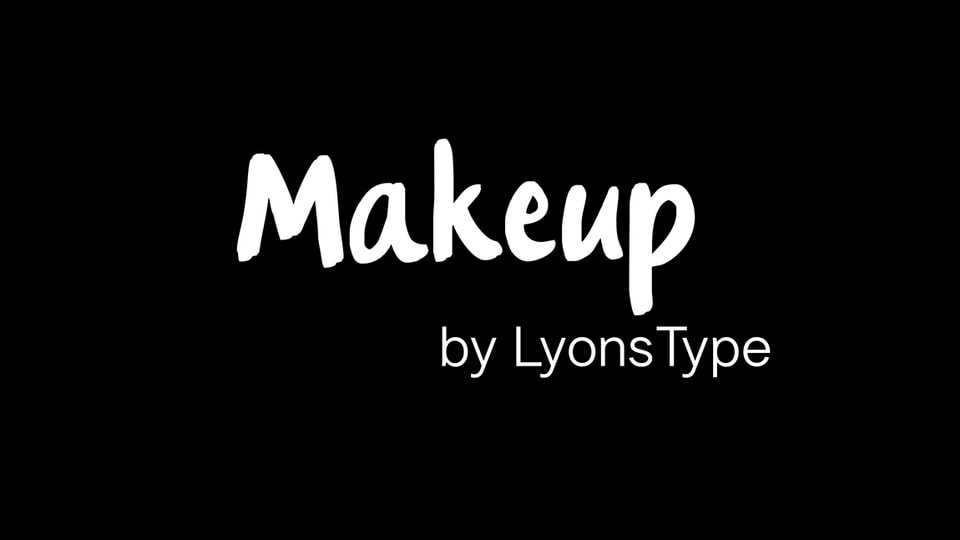
Download LT Makeup font, a casual and expressive handwritten typeface that effortlessly blends the free-spirited charm of brush strokes with a relaxed, approachable style. Crafted with the authenticity of a hand-drawn touch, LT Makeup font brings a sense of casual flair to your designs.